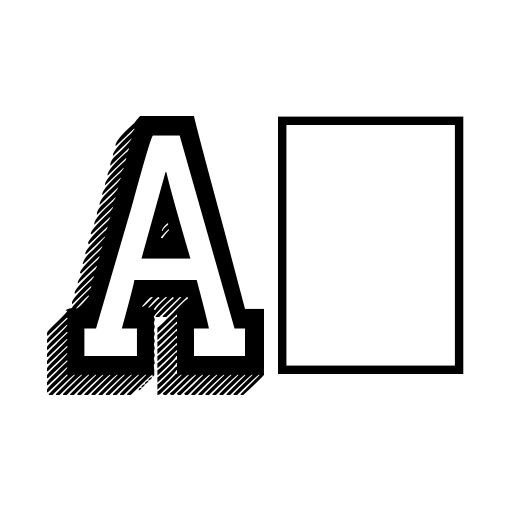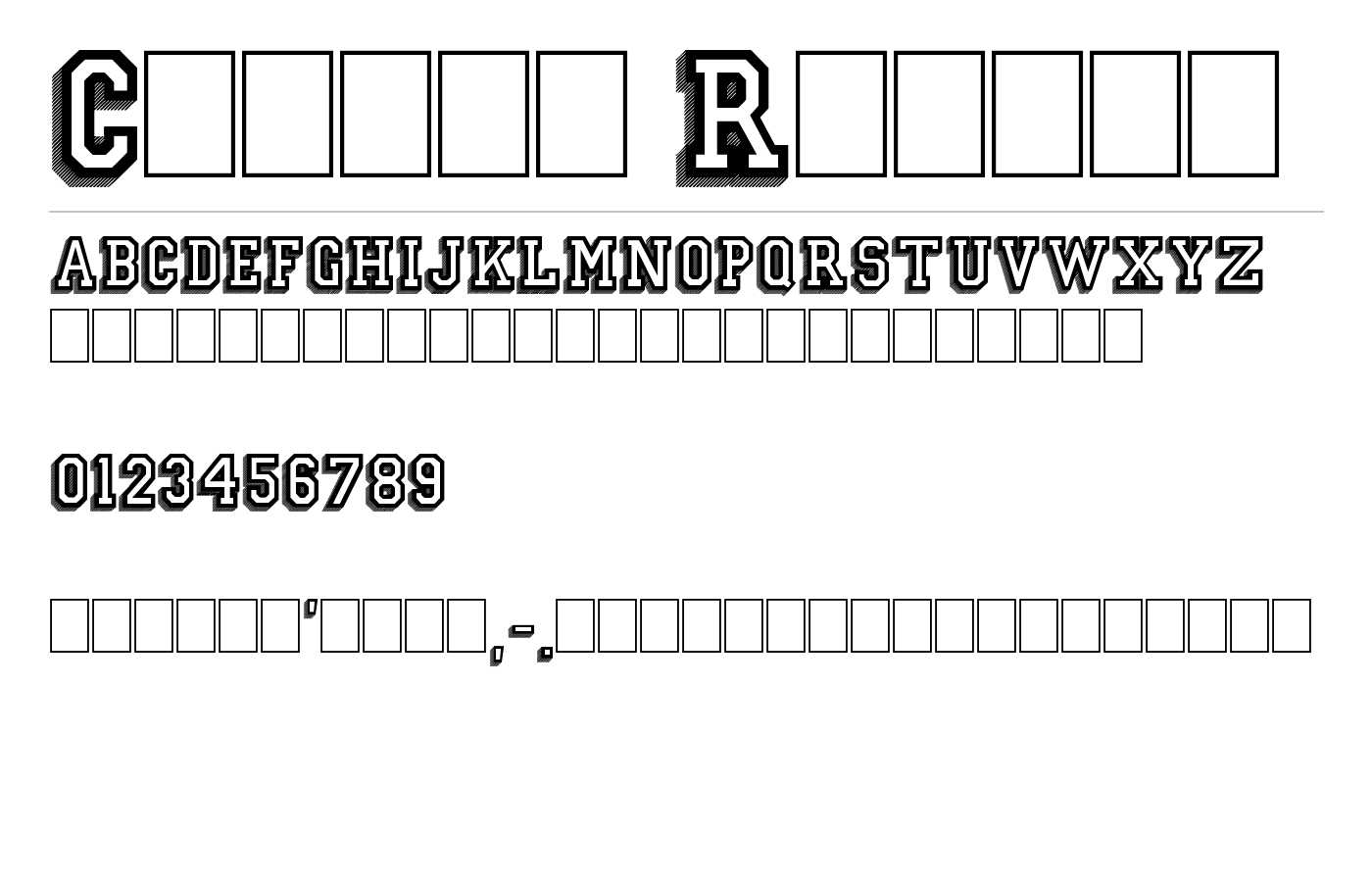
Campus Relief is a bold, condensed slab serif font that features a strong collegiate or varsity style, characterized by its blocky letterforms and clear, geometric shapes. Its sharp, thick serifs combined with the distinct shadow effect give it a vintage, sporty vibe, perfect for logos, posters, and branding that need a confident, energetic look. This font works well for athletic-themed designs, merchandise, and headlines where bold impact and legibility are key.
Campus Relief Font
About Campus Relief Font
| Font family | Campus Relief Font |
| Designer | Imagex |